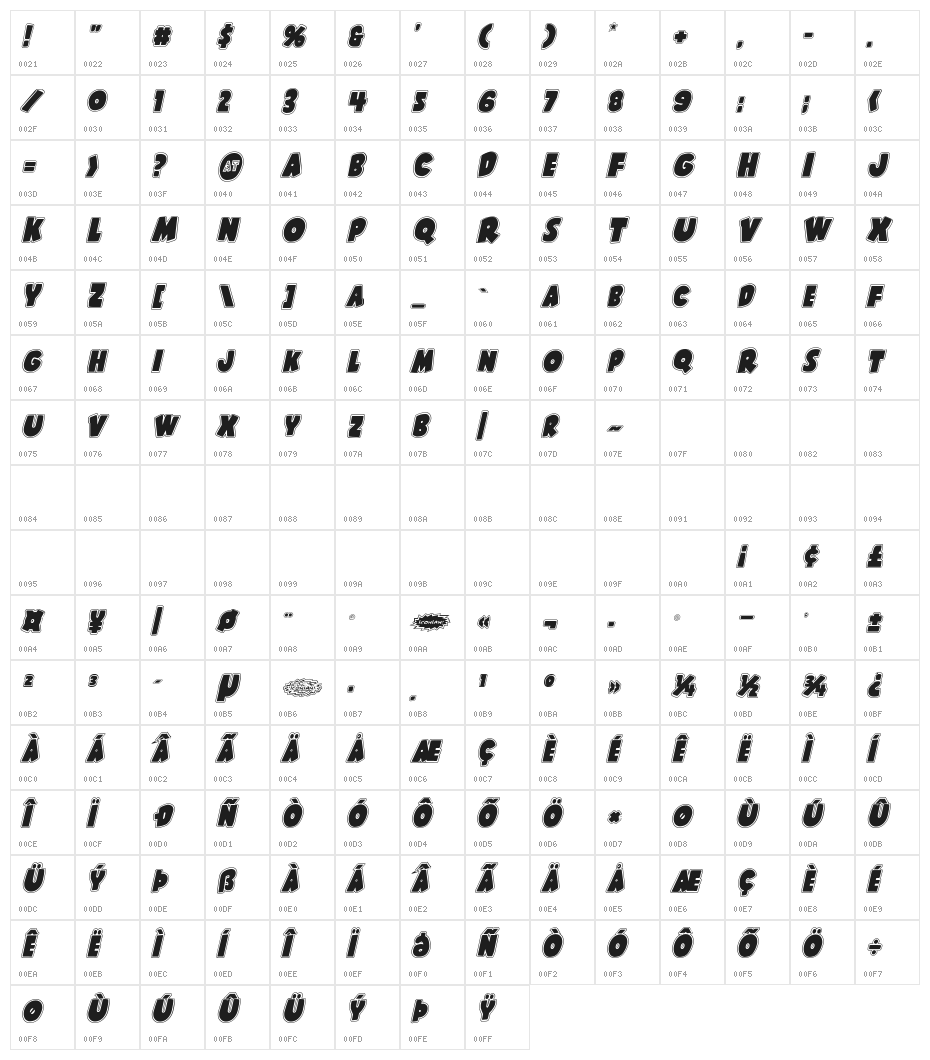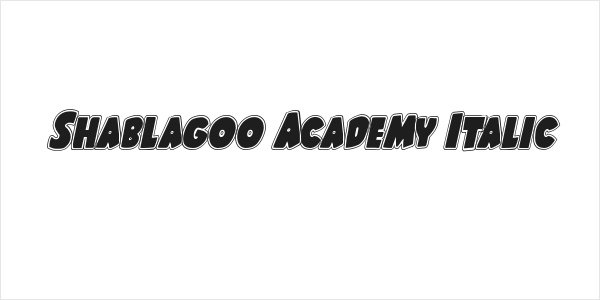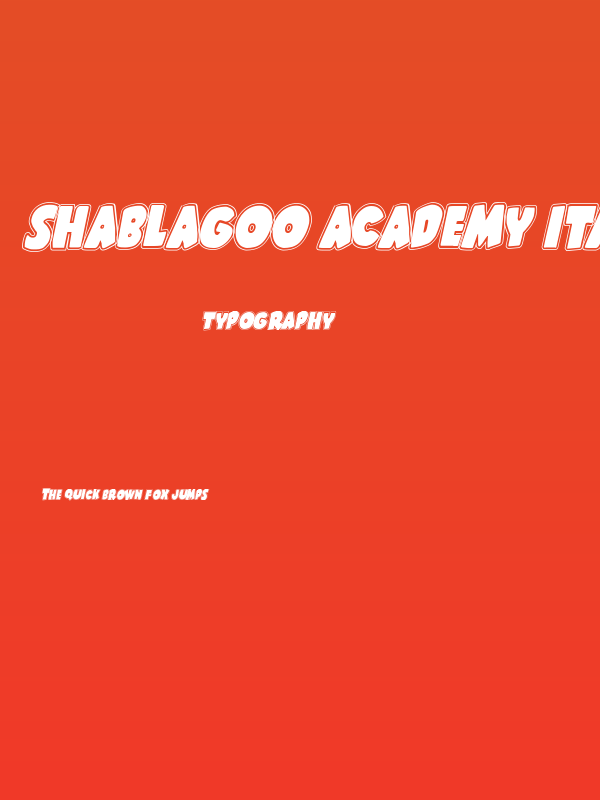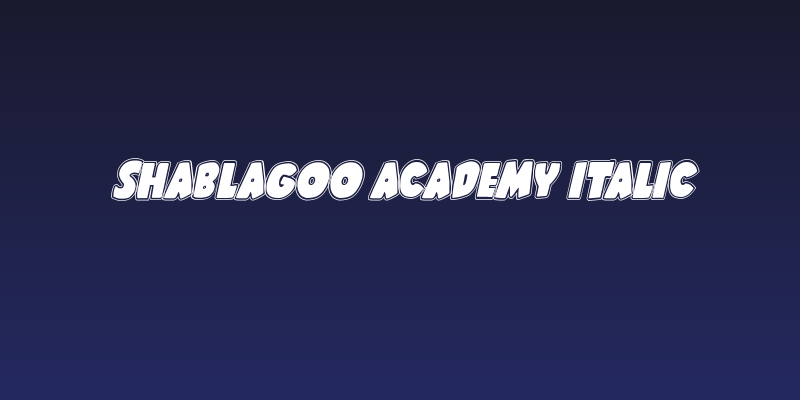
Shablagoo Academy Italic Font
Shablagoo Academy Italic Description
This font features bold, rounded characters with a playful and dynamic appearance. The letters are italicized, adding a sense of motion and energy. The thick strokes and prominent outlines give it a strong presence, making it ideal for attention-grabbing designs. The font includes both uppercase and lowercase letters, numerals, and a variety of special characters. Its style is reminiscent of comic book lettering, with a modern twist that makes it suitable for contemporary designs. The overall look is both fun and impactful, perfect for projects that require a bold statement.
Proposed ProjectsIdeal for comic book titles, children's book covers, playful branding, and eye-catching posters.